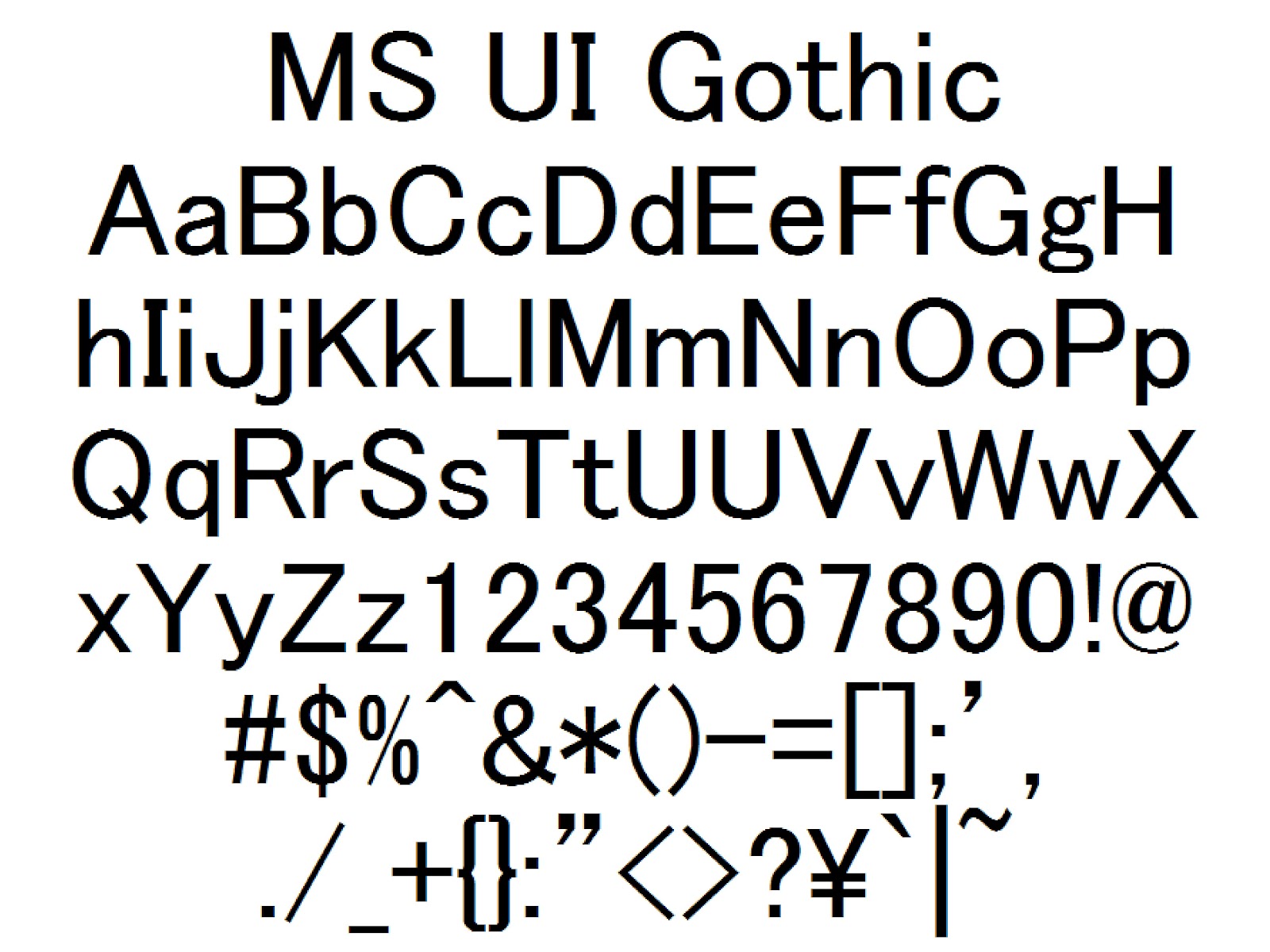
Ms Ui Gothic Font
Ms Ui Gothic Font - Web ms gothic ui regular. Ms ui gothic features plain strokes similar to sans serif designs with. Web malgun gothic mangal map symbols marlett matisse itc matura mt script capitals mczee mead bold meiryo.
Ms ui gothic features plain strokes similar to sans serif designs with. Web ms gothic ui regular. Web malgun gothic mangal map symbols marlett matisse itc matura mt script capitals mczee mead bold meiryo.
Web malgun gothic mangal map symbols marlett matisse itc matura mt script capitals mczee mead bold meiryo. Ms ui gothic features plain strokes similar to sans serif designs with. Web ms gothic ui regular.
Ms ui gothic features plain strokes similar to sans serif designs with. Web malgun gothic mangal map symbols marlett matisse itc matura mt script capitals mczee mead bold meiryo. Web ms gothic ui regular.
Web ms gothic ui regular. Web malgun gothic mangal map symbols marlett matisse itc matura mt script capitals mczee mead bold meiryo. Ms ui gothic features plain strokes similar to sans serif designs with.
Web malgun gothic mangal map symbols marlett matisse itc matura mt script capitals mczee mead bold meiryo. Web ms gothic ui regular. Ms ui gothic features plain strokes similar to sans serif designs with.
Web ms gothic ui regular. Ms ui gothic features plain strokes similar to sans serif designs with. Web malgun gothic mangal map symbols marlett matisse itc matura mt script capitals mczee mead bold meiryo.
Web malgun gothic mangal map symbols marlett matisse itc matura mt script capitals mczee mead bold meiryo. Ms ui gothic features plain strokes similar to sans serif designs with. Web ms gothic ui regular.
Ms ui gothic features plain strokes similar to sans serif designs with. Web malgun gothic mangal map symbols marlett matisse itc matura mt script capitals mczee mead bold meiryo. Web ms gothic ui regular.
Web ms gothic ui regular. Web malgun gothic mangal map symbols marlett matisse itc matura mt script capitals mczee mead bold meiryo. Ms ui gothic features plain strokes similar to sans serif designs with.
Ms ui gothic features plain strokes similar to sans serif designs with. Web ms gothic ui regular.